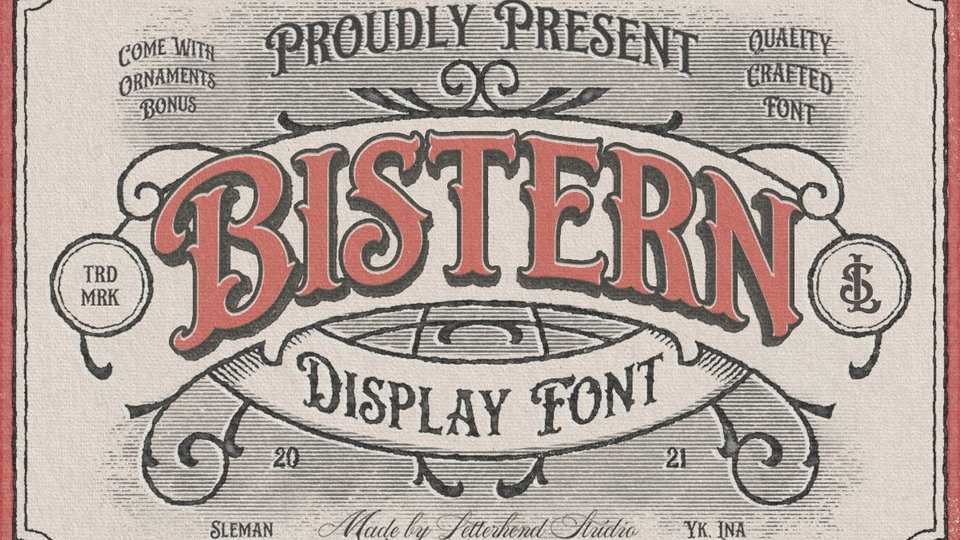
Download Bistern font, a decorative display typeface, inspired by vintage lettering sign and art. While Bistern font has a Victorian touch, it still looks bold and solid.